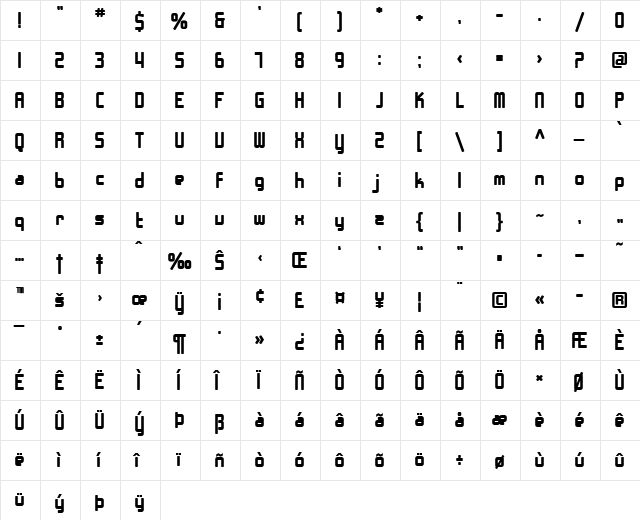
SF Chrome Fenders Bold
| Designer | ShyFonts Type Foundry |
Design Context for SF Chrome Fenders Typeface
SF Chrome Fenders takes a measured approach to typography — its balanced proportions and neutral character make it a reliable workhorse for both digital and print work. Its bold stroke weight gives it real presence on the page.